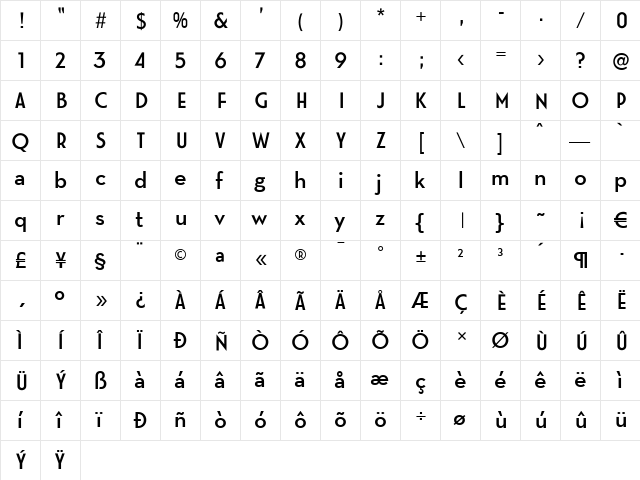
Modern M Regular
| Foundry | Marco De Luca Gaetani |
| Designer | Marco De Luca Gaetani |
Design Context for Modern M Typeface
Modern M offers clean, dependable letterforms without strong stylistic allegiance, making it a practical choice for designers who need flexibility.
Pro Tip: Pair Modern M with a font of contrasting weight or personality to build a more expressive typographic hierarchy.